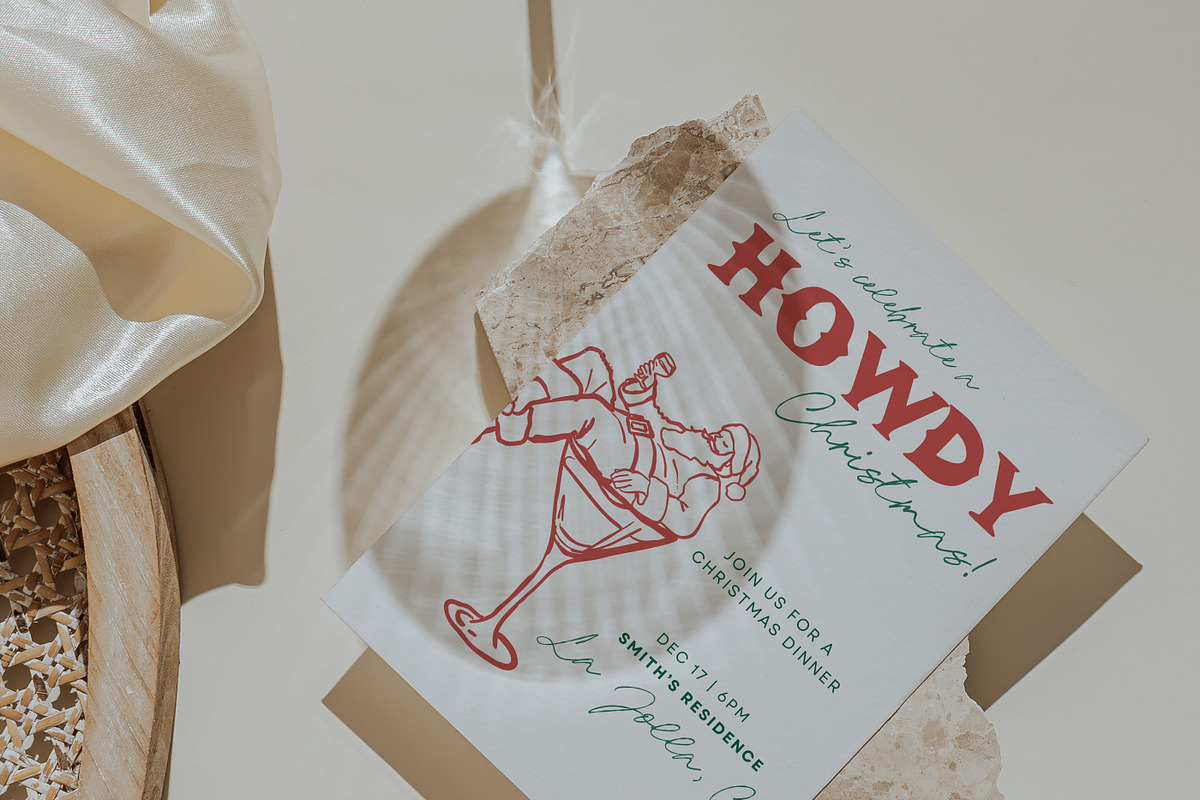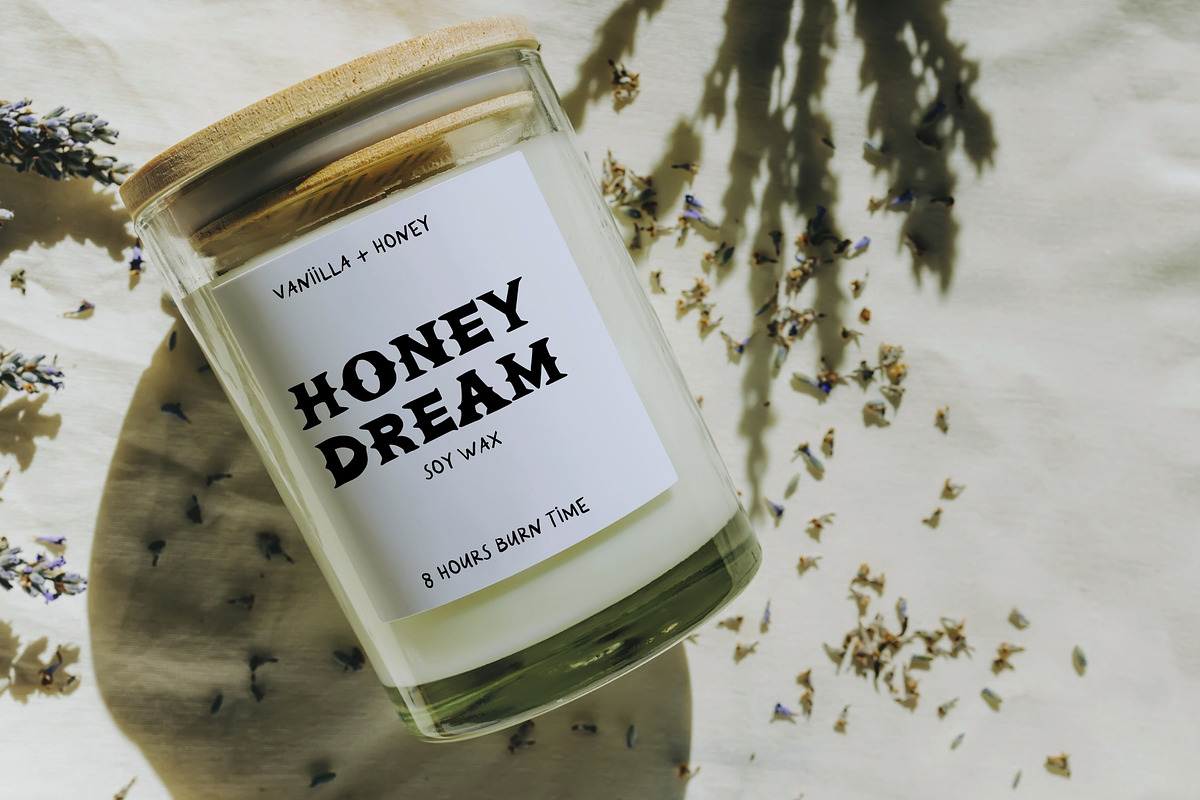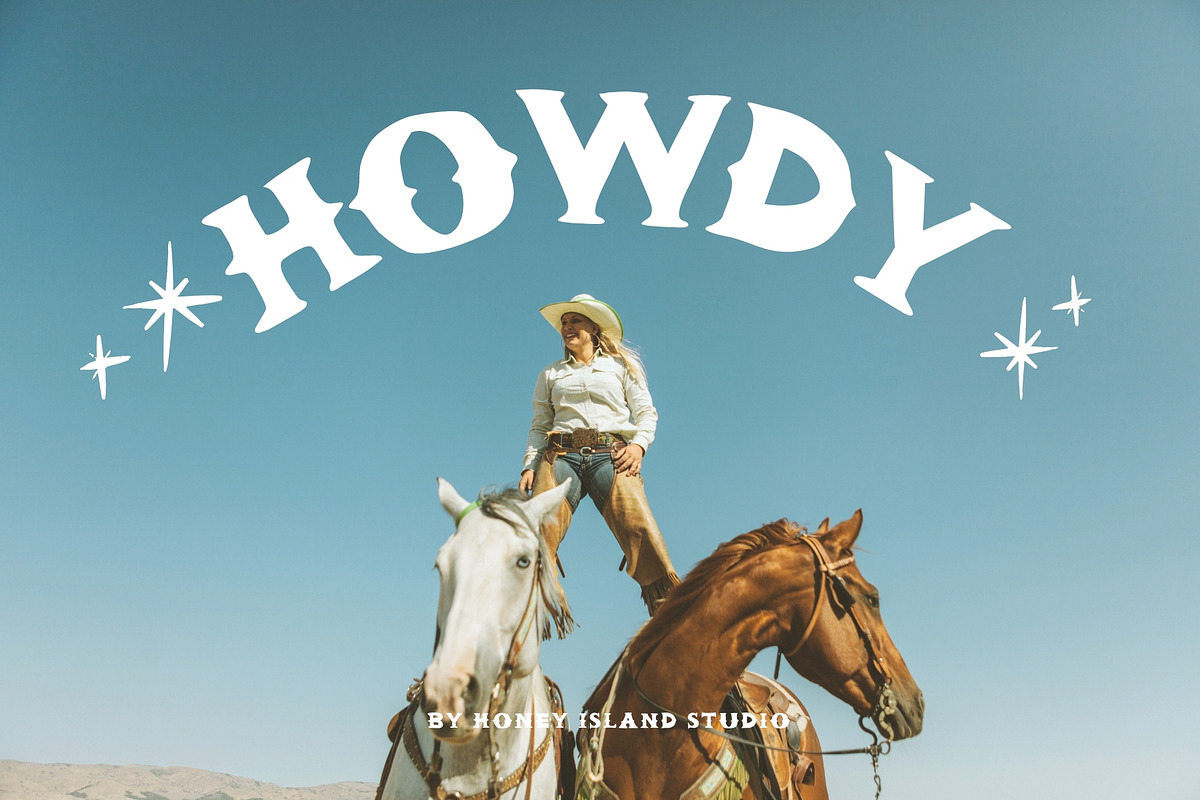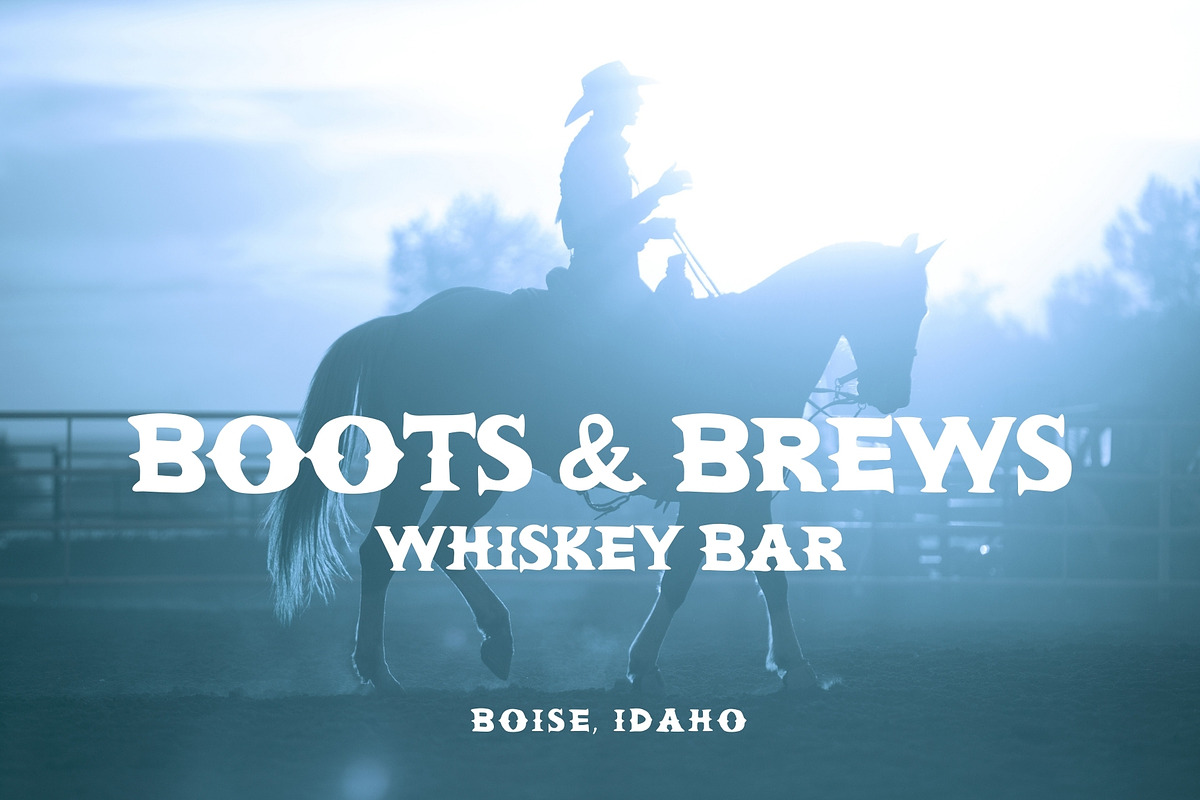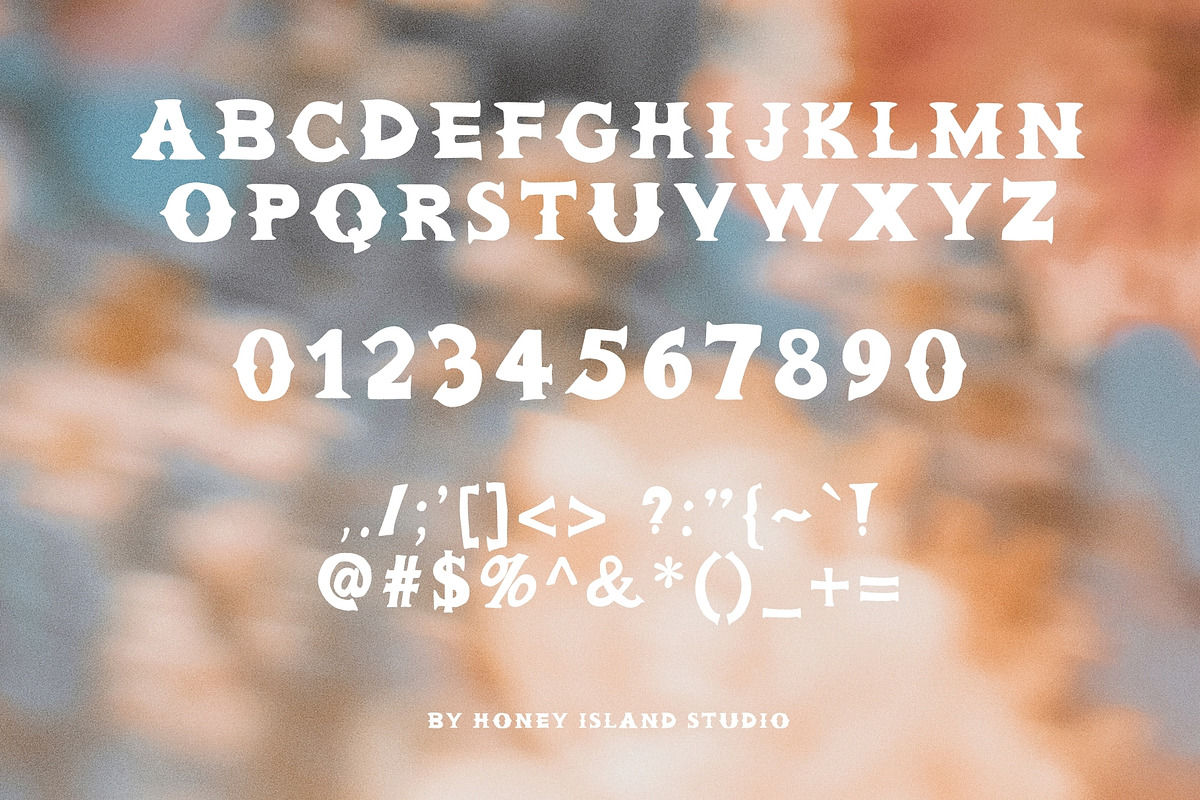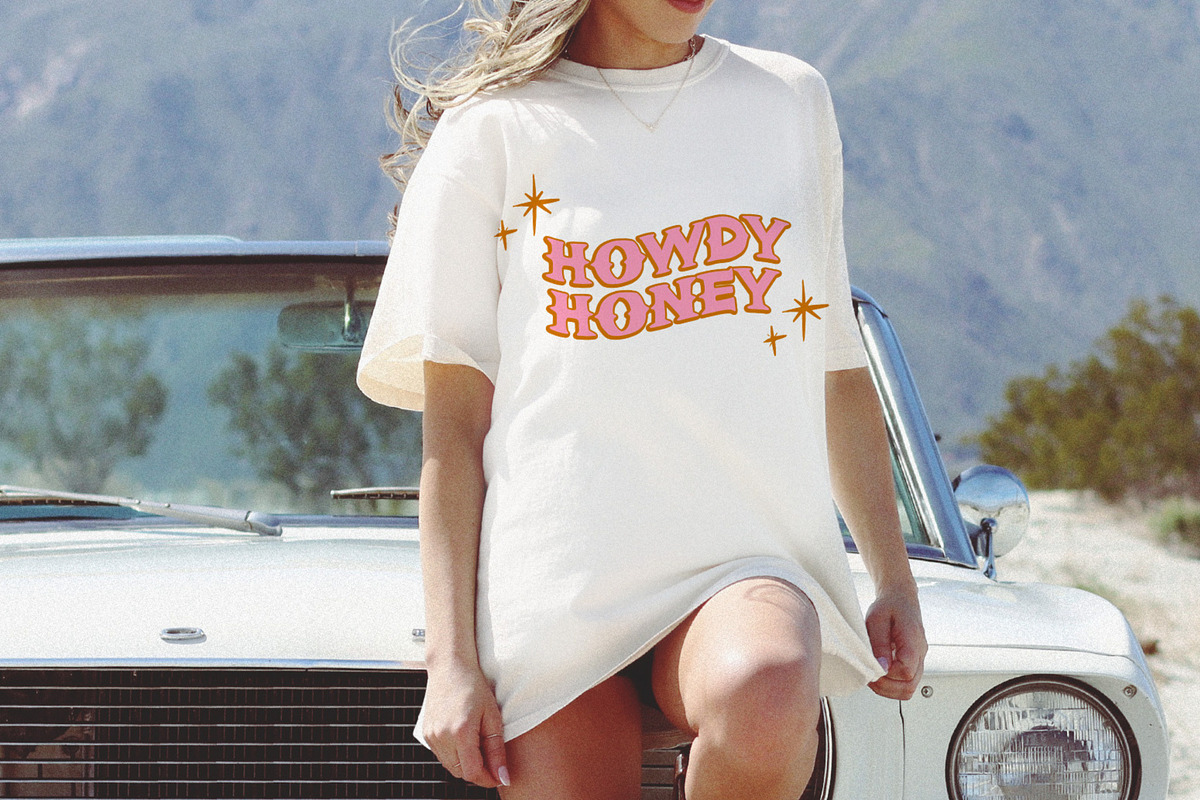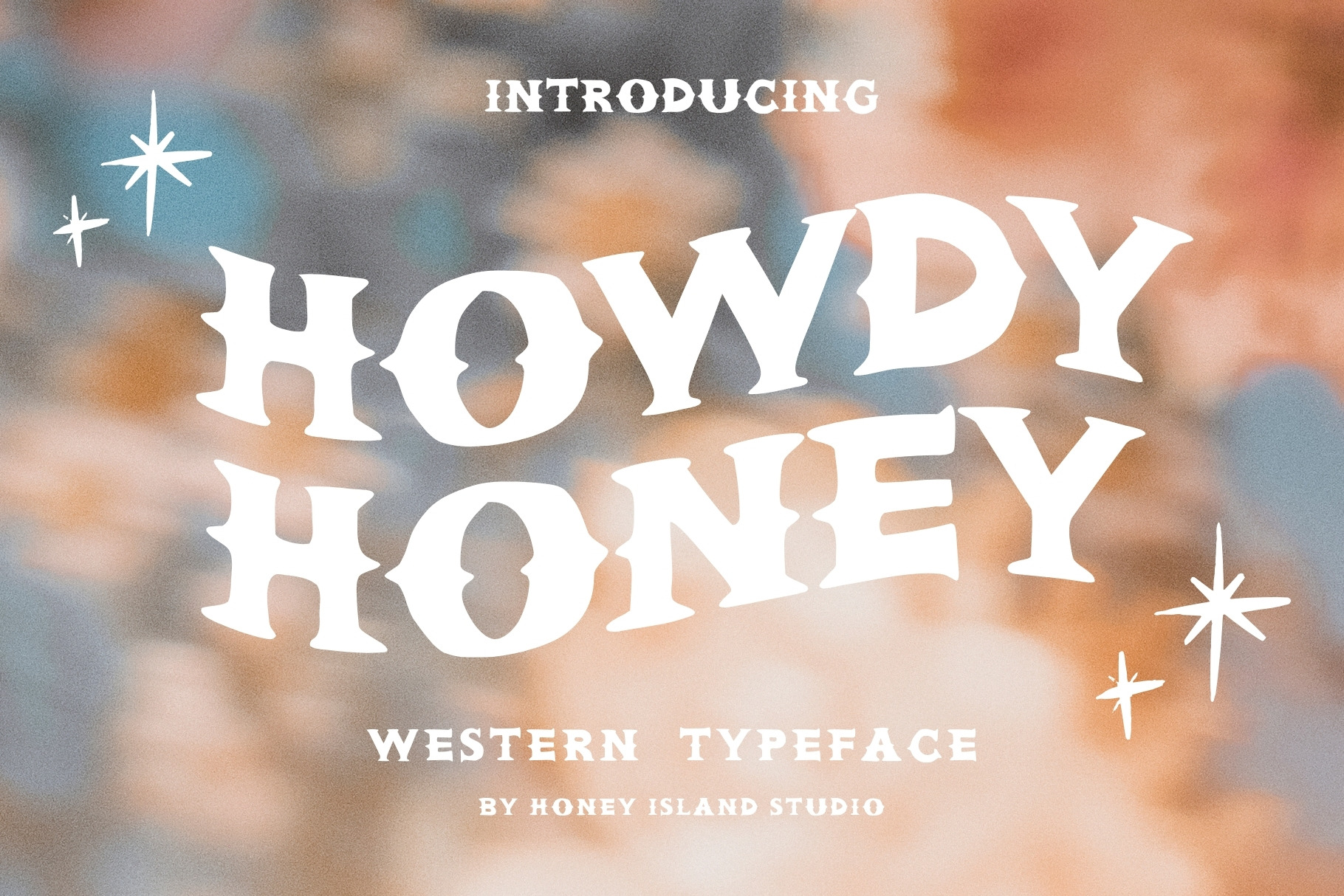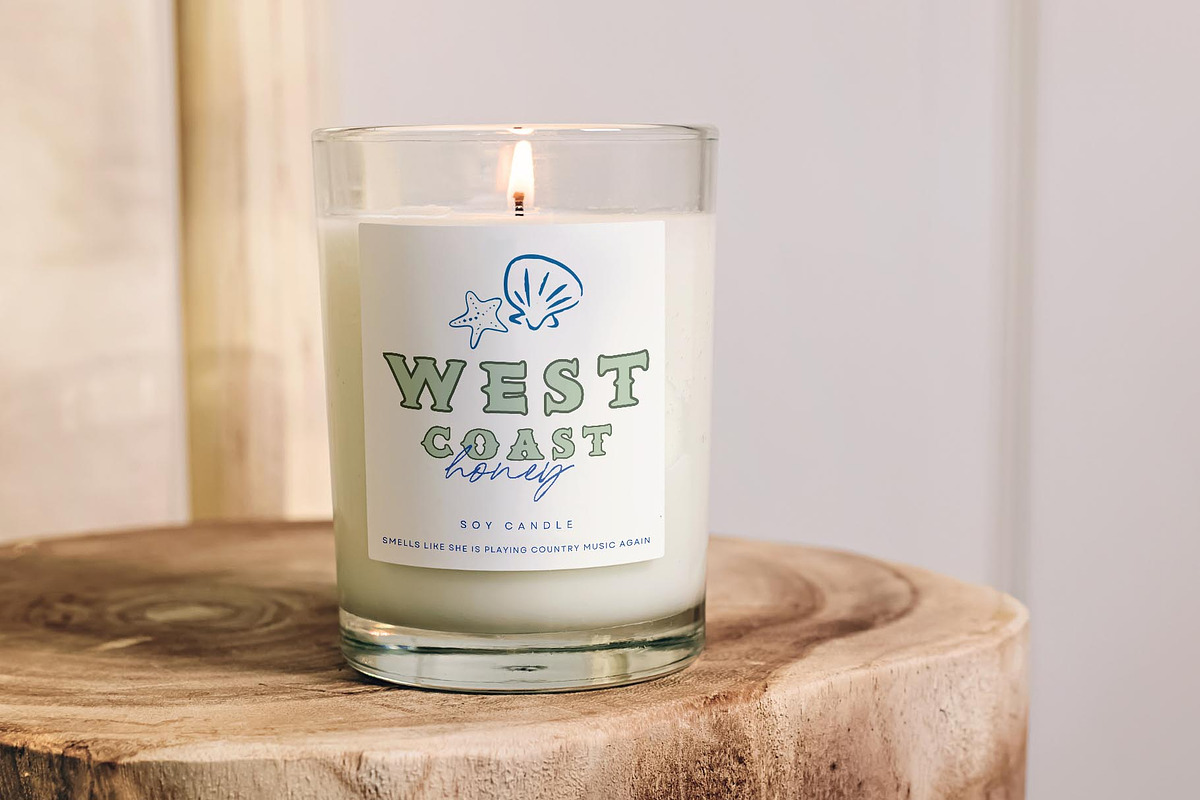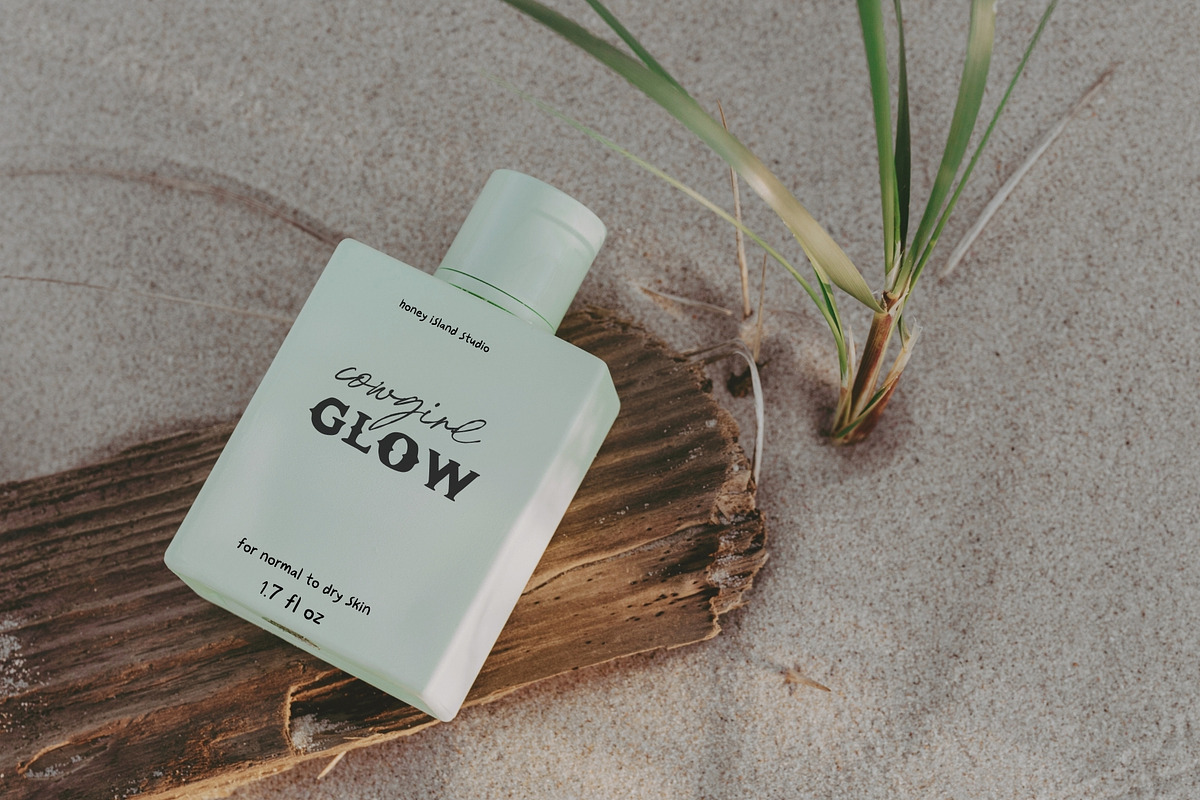
Howdy Honey Western Font
Introducing Howdy Honey Handwritten Western Font
Capture the heart and soul of the Wild West with the Howdy Honey Handwritten Western Font! This enchanting typeface combines the warmth of handwritten letters with a rustic Western flair, making it perfect for anyone looking to infuse their designs with a personal touch.
The Howdy Honey font features charming, flowing characters that evoke a sense of nostalgia and authenticity. Ideal for everything from vintage-inspired invitations to trendy branding, this font brings a playful yet sophisticated vibe to your projects. Its unique style makes it perfect for Western-themed events, country music promotions, and more.
- Handwritten aesthetic with a Western twist
- Legible and versatile for various applications
- Perfect for logos, signage, invitations, and more
- Adds a personal, warm touch to your designs
- Bring your creative projects to life with the Howdy Honey Handwritten Western Font and let your words tell a story that resonates with the spirit of the West!